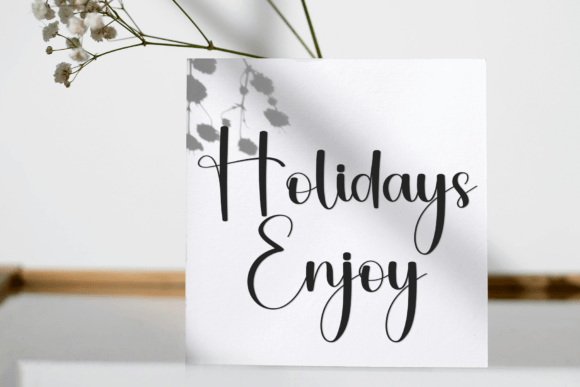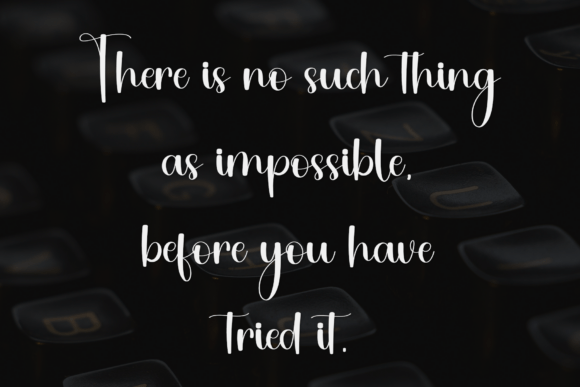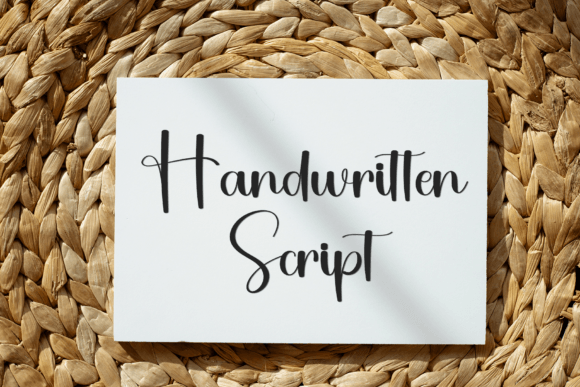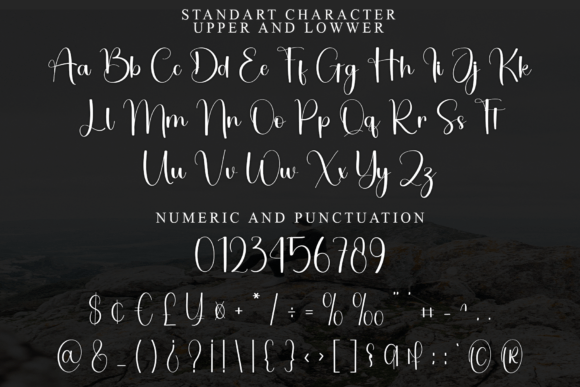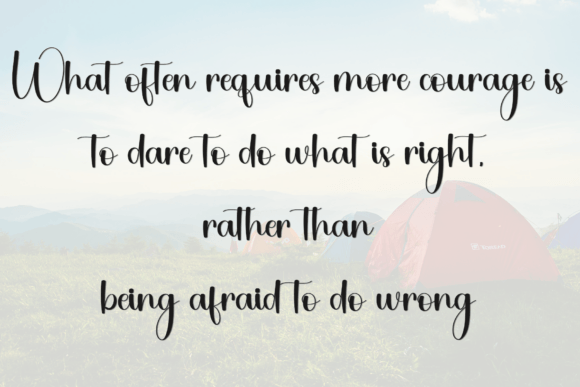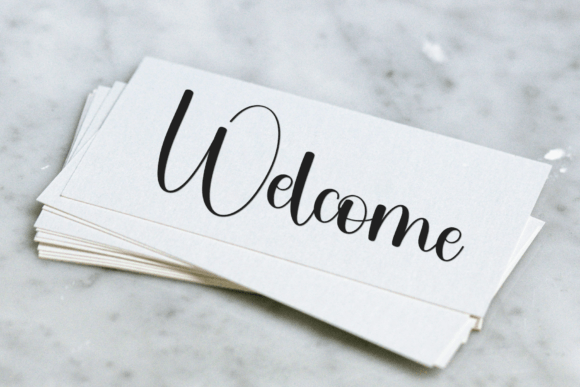
Introducing Another Font: Elevate Your Designs with Elegance and Charm
In the world of typography, fonts play a crucial role in conveying the tone and personality of a design. For designers and crafters seeking to add a touch of sophistication and elegance to their work, Another Font is an exceptional choice. This stylish handwritten script font is designed to exude charm and refinement, making it perfect for a variety of applications, from branding and invitations to stationery and more.
The Characteristics of Another Font
Another Font boasts fluid, graceful strokes that dance across the page, creating a sense of movement and fluidity. Its smooth curves and natural flow evoke a timeless, refined look that is sure to captivate audiences. The font’s elegant appearance is characterized by:
- Fluid strokes: Another Font’s strokes are designed to flow seamlessly, creating a sense of continuity and harmony.
- Smooth curves: The font’s curves are carefully crafted to produce a soft, rounded appearance that adds to its elegance.
- Natural flow: The font’s natural flow creates a sense of organic movement, making it perfect for designs that require a personal touch.
Perfect for Branding, Invitations, and Stationery
Another Font is an excellent choice for designers and crafters seeking to create stunning branding, invitations, and stationery. Its elegant appearance makes it suitable for:
- Branding: Use Another Font to create a sophisticated brand identity that exudes refinement and elegance.
- Invitations: Add a touch of luxury to your invitations with Another Font’s fluid, graceful strokes.
- Stationery: Elevate your stationery designs with Another Font’s timeless, refined look.
Why Choose Another Font?
With so many fonts available, why choose Another Font? Here are just a few reasons why designers and crafters love this stylish handwritten script font:
- Elegance: Another Font’s elegant appearance adds a touch of sophistication to any design.
- Versatility: The font’s versatility makes it suitable for a wide range of applications, from branding to stationery.
- Timeless appeal: Another Font’s timeless, refined look ensures that your designs will remain stylish for years to come.
Tips for Using Another Font
To get the most out of Another Font, here are a few tips to keep in mind:
- Pair with contrasting fonts: Pair Another Font with contrasting fonts to create visual interest and hierarchy.
- Use for headlines and titles: Another Font is perfect for headlines and titles, where its elegant appearance can shine.
- Experiment with colors: Try pairing Another Font with different colors to add depth and personality to your designs.
In conclusion, Another Font is a stylish handwritten script font that is sure to elevate your designs with its elegance and charm. With its fluid, graceful strokes and smooth curves, it’s perfect for branding, invitations, and stationery. Whether you’re a designer or crafter, Another Font is an excellent choice for anyone seeking to add a touch of sophistication to their work.